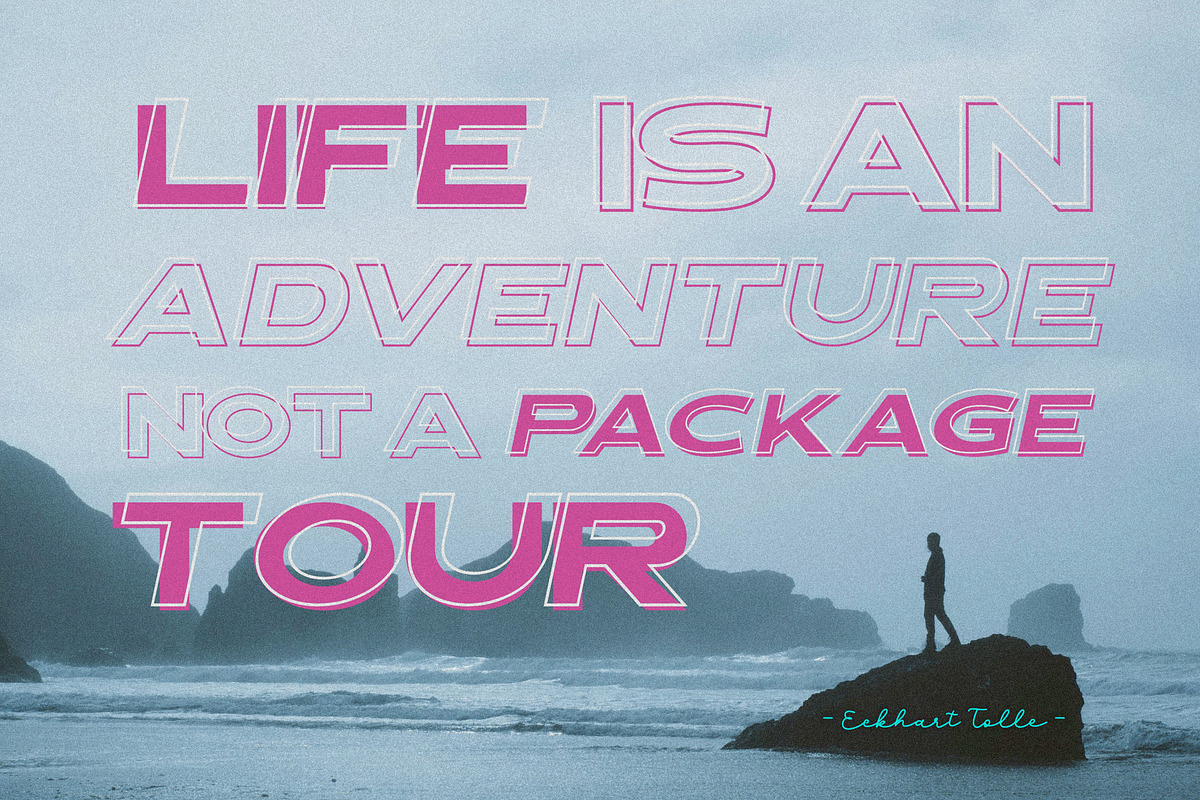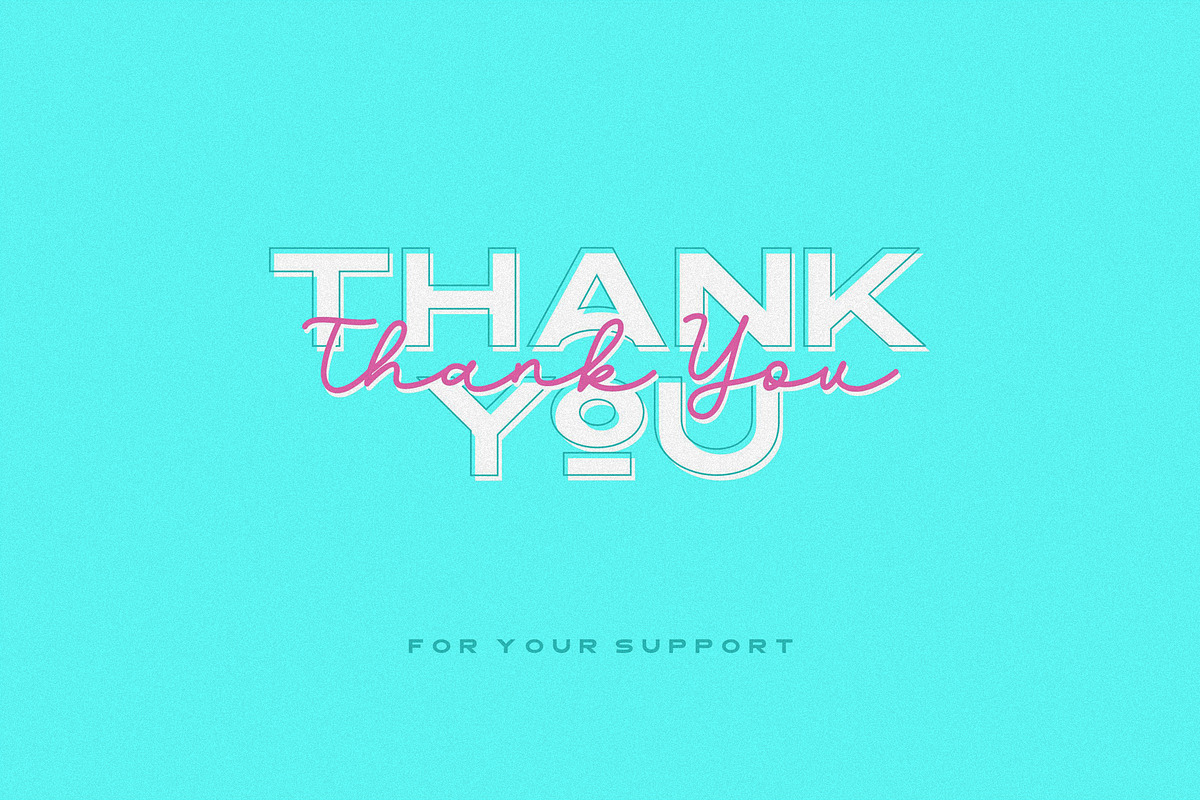
Leandro Modern Sans
Leandro
An elegant modern sans serif pair with script monoline, also with ton of stylistic alternates to choose. Its clean and minimalistic works wonderfully on its own for logos, headlines, posters, packaging and many more! including more than 60 Ligatures to create more unique and versatile design. Have fun and create more.. Your Imagination only your limit!!
- Leandro All caps
- Leandro Script Monoline
- Stylistic Alternates & Ligatures